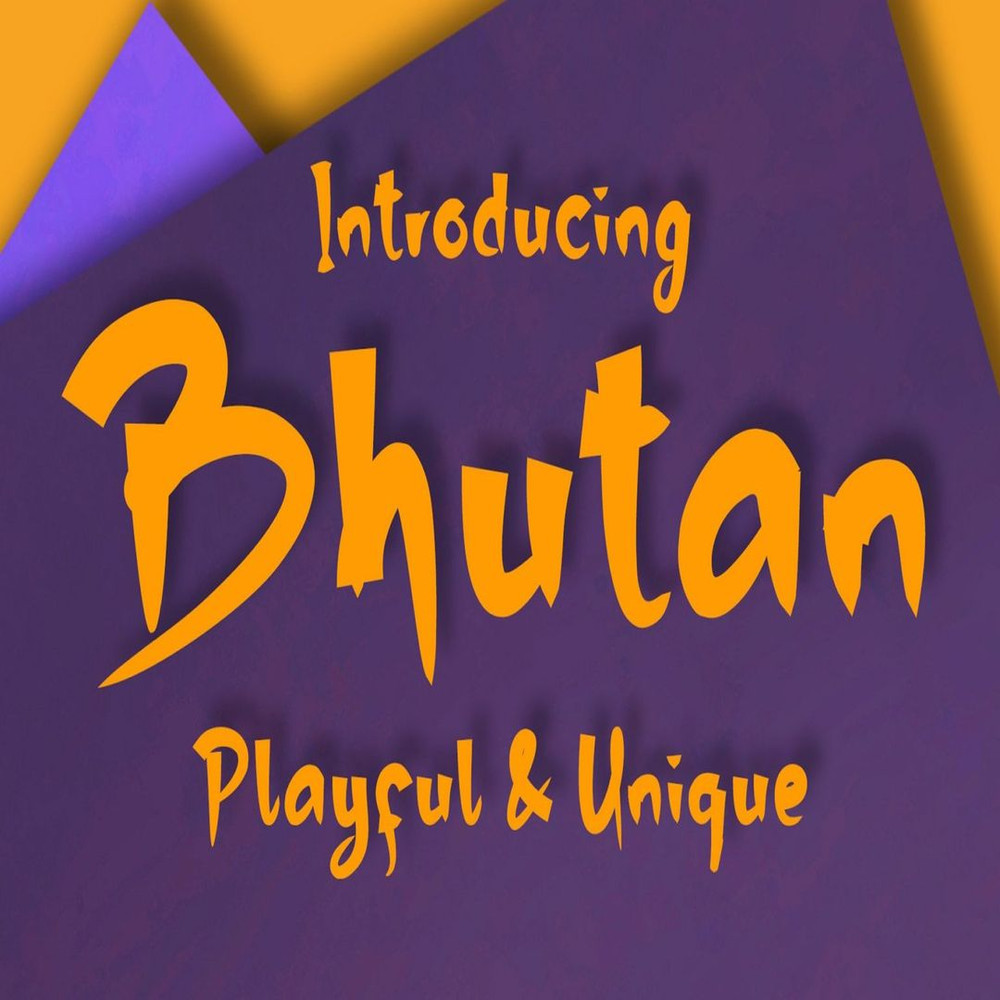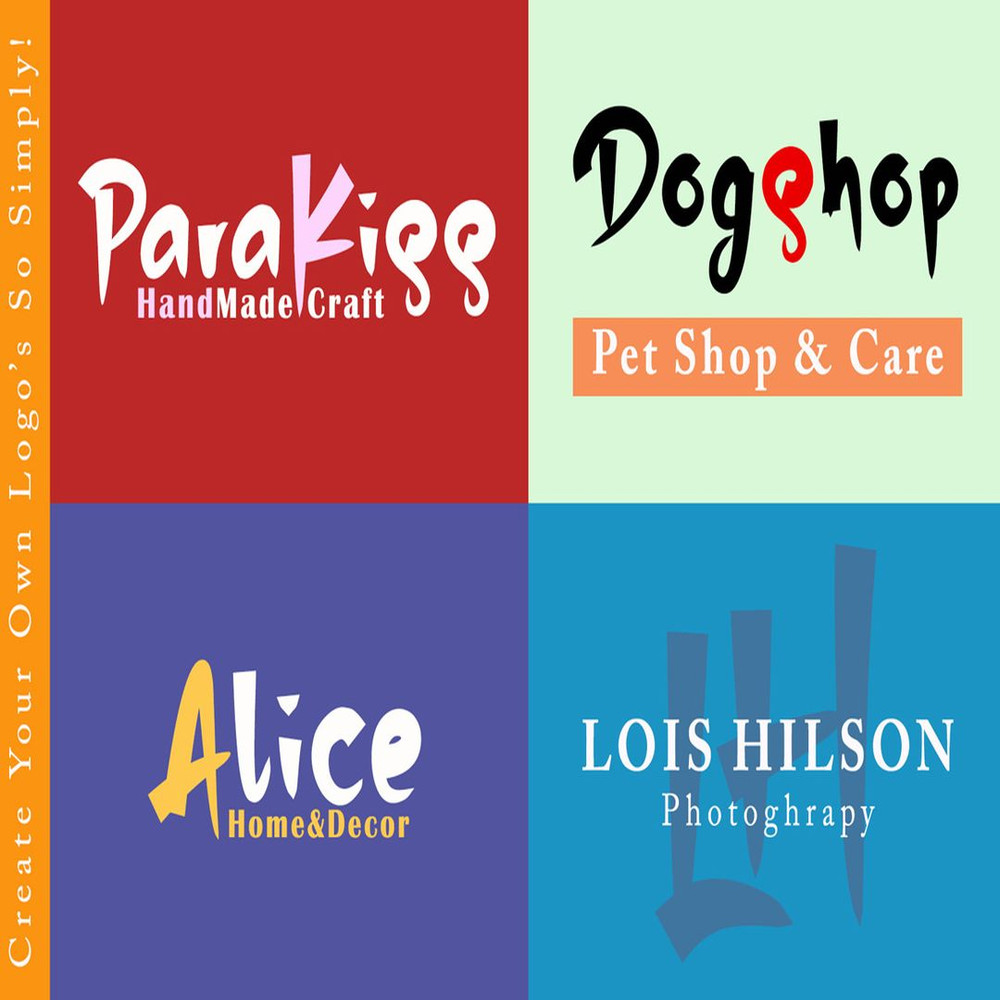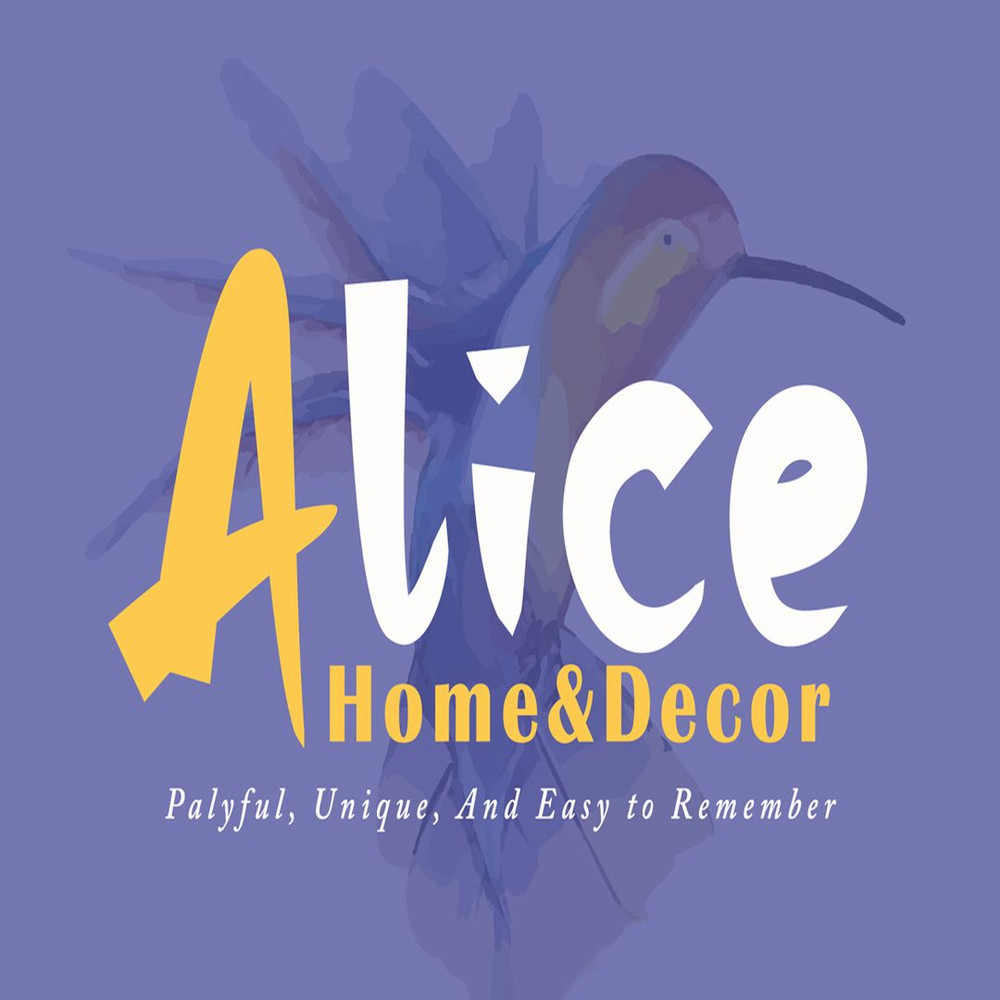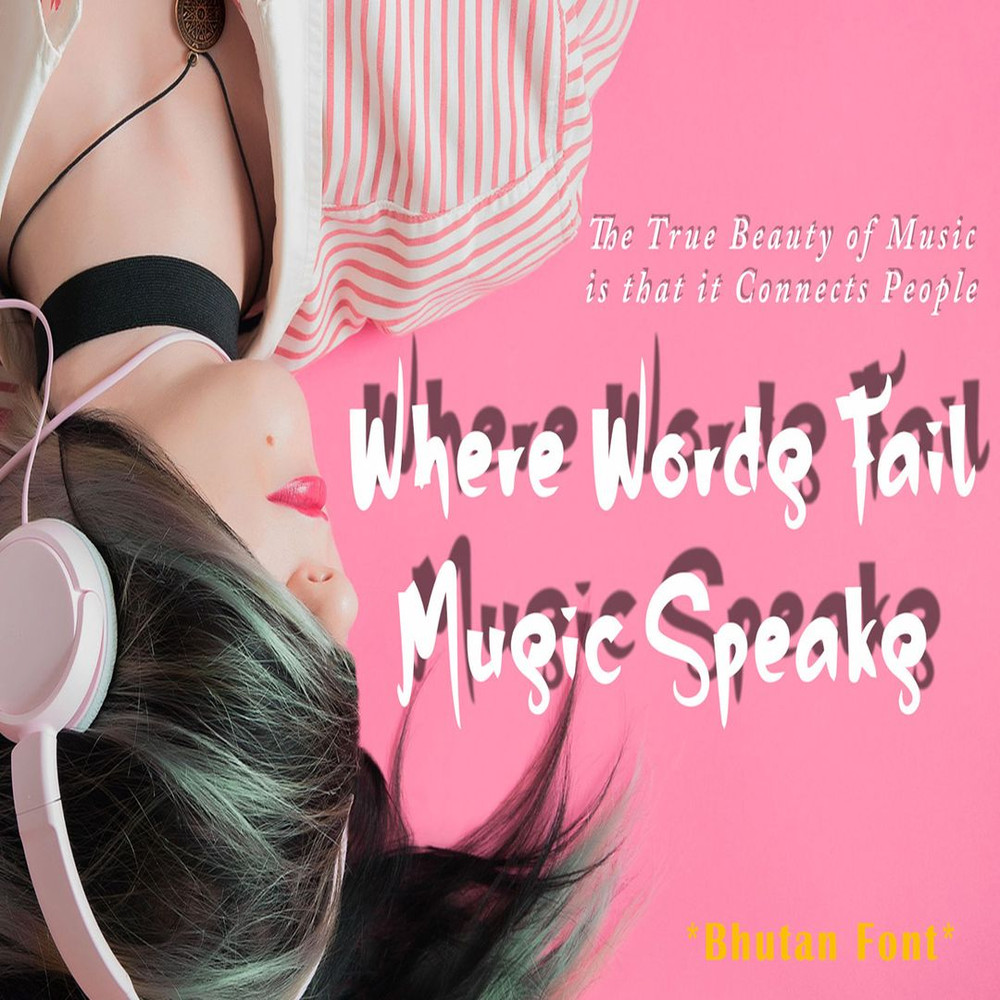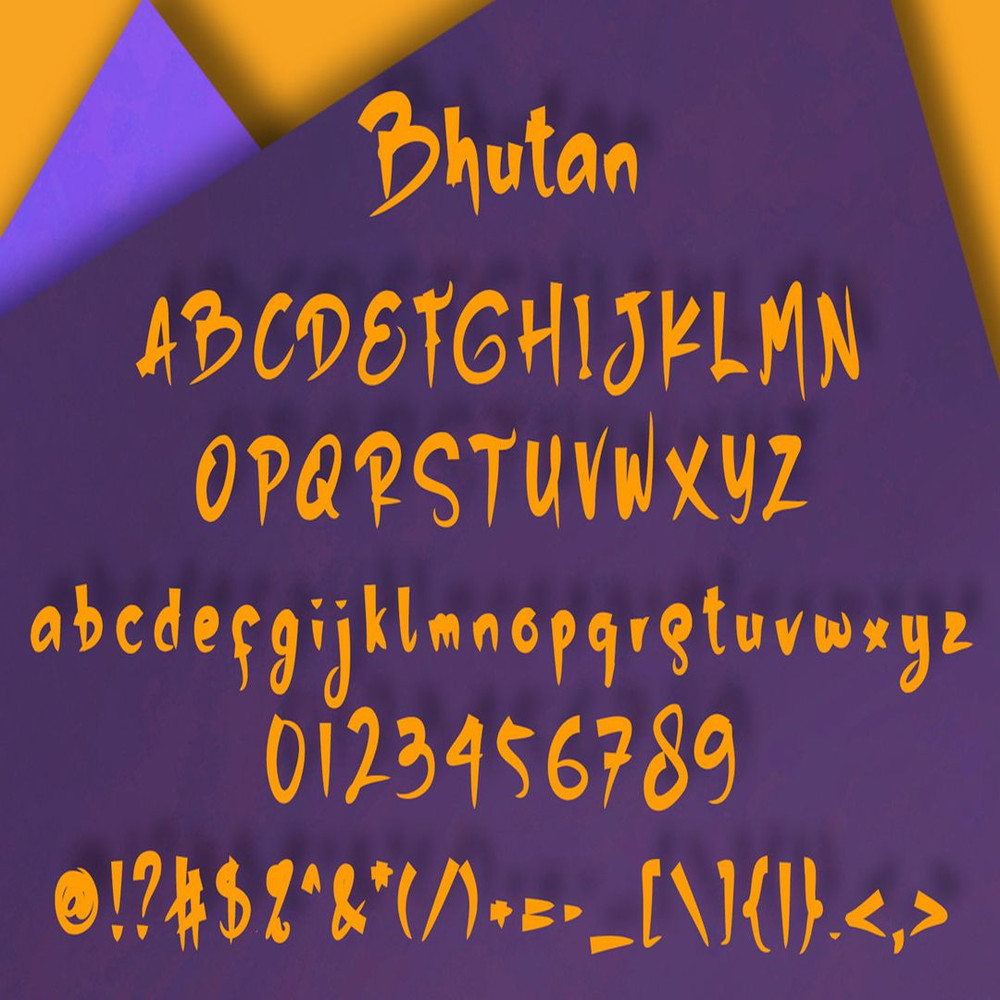
Bhutan is a great font for any project! This font made with a unique taste comes with a natural touch. We keep this font looks readable, elegant, stylish, catchy, and absolutely easy to use.
Bhutan is a great choice for a watermark on branding, design, wedding, photography, signature, logo design, album cover, business card, quotes, and much another design project.
-Stylish handwritten style